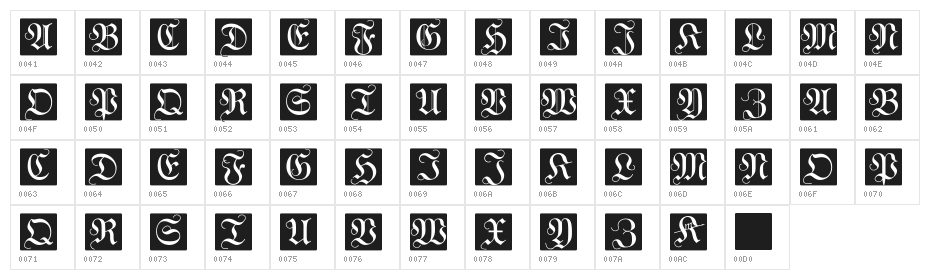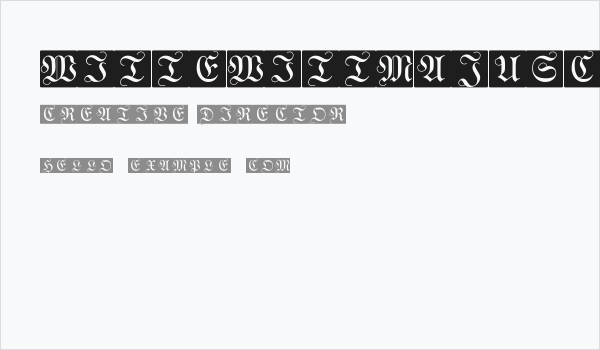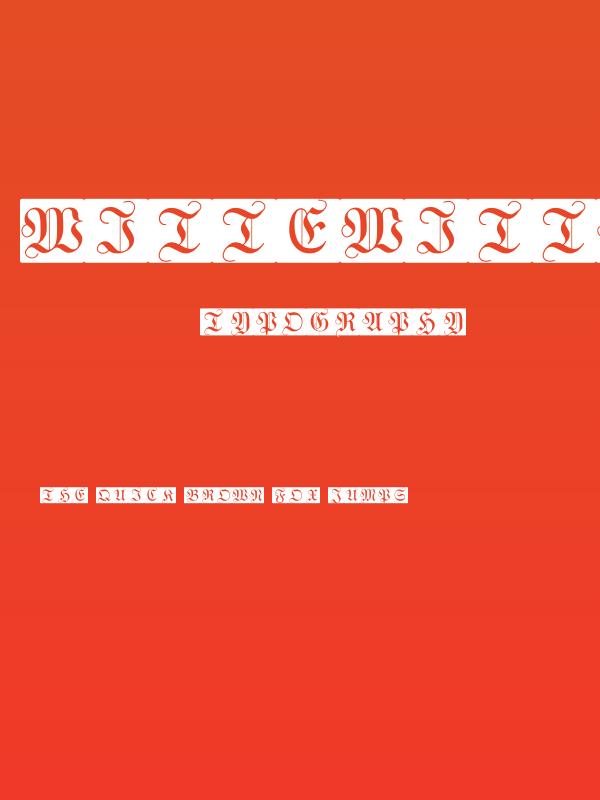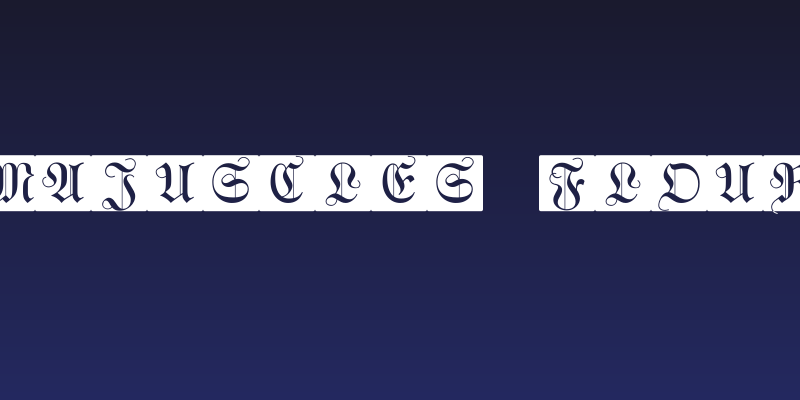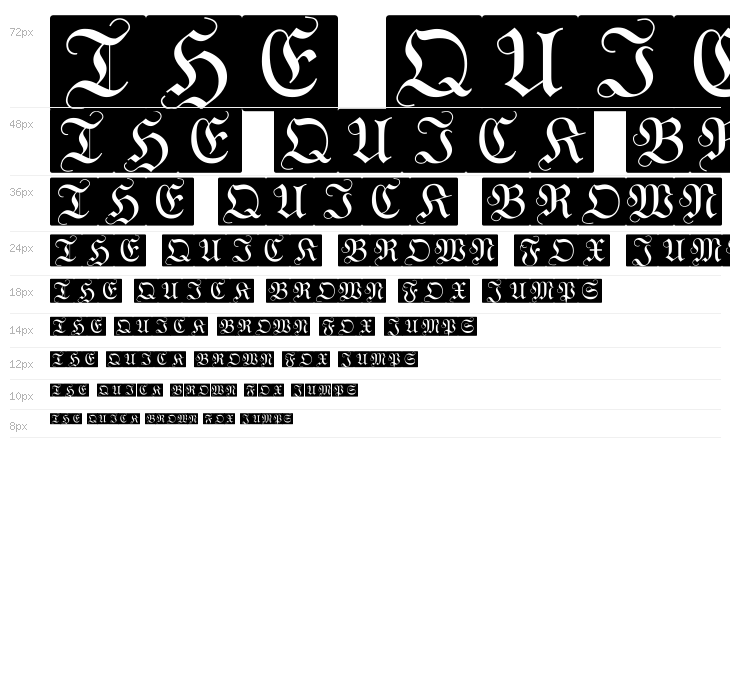
WittewittMajuscles-FlourishBricks Font
WittewittMajuscles-FlourishBricks Description
This font exhibits a classic blackletter style, characterized by its intricate and ornate design. The letters are highly decorative, with elaborate flourishes and sharp angles that give it a historical and gothic appearance. The strokes are bold and pronounced, with a high contrast between thick and thin lines, enhancing its dramatic and formal look. The characters are tightly spaced, contributing to its dense and impactful presence. This font is reminiscent of medieval manuscripts and traditional calligraphy, making it suitable for projects that require a touch of elegance and antiquity.
| Proposed Projects | Ideal for use in wedding invitations, historical documents, book covers, and branding that seeks a vintage or gothic aesthetic. |